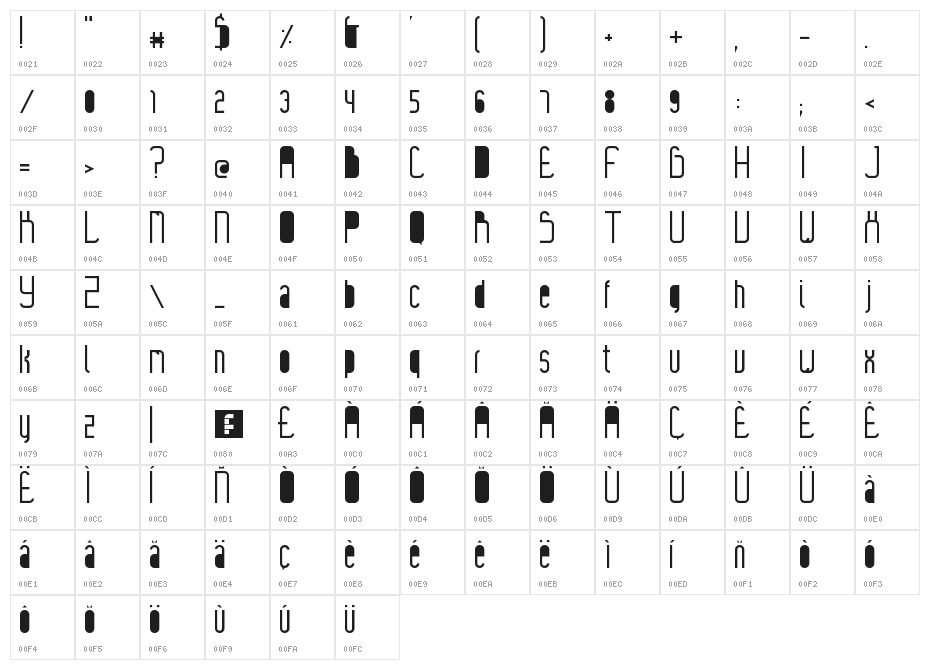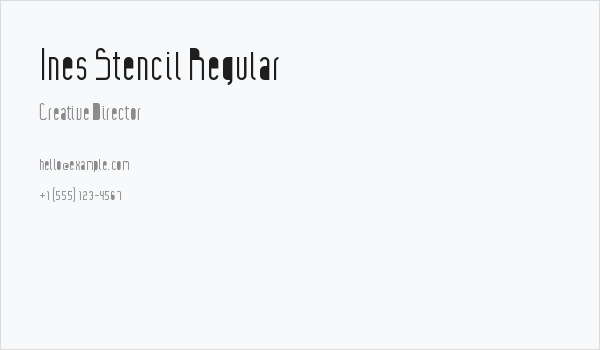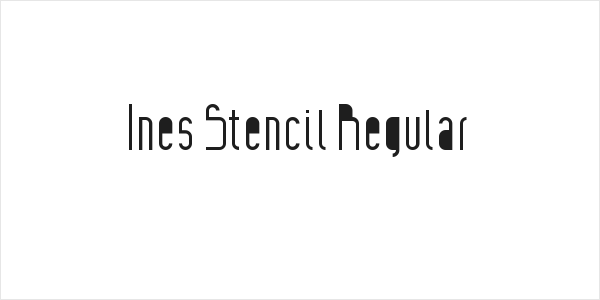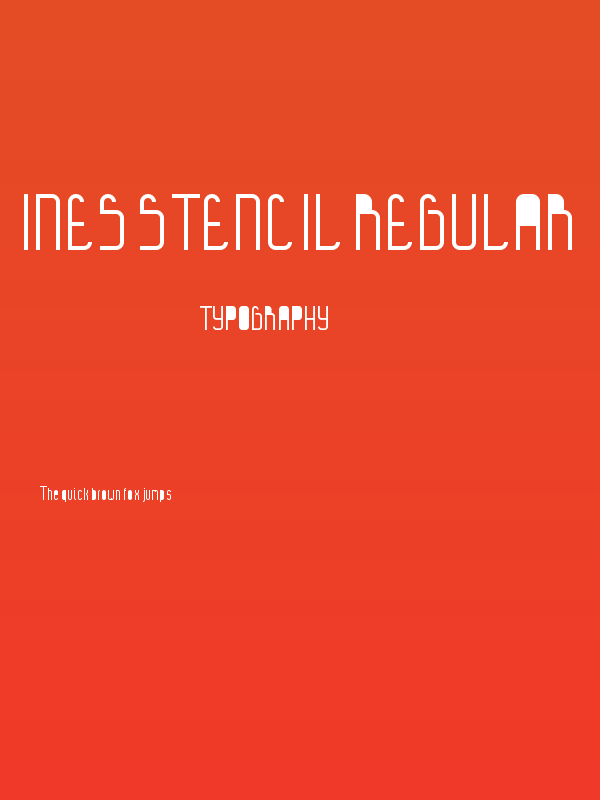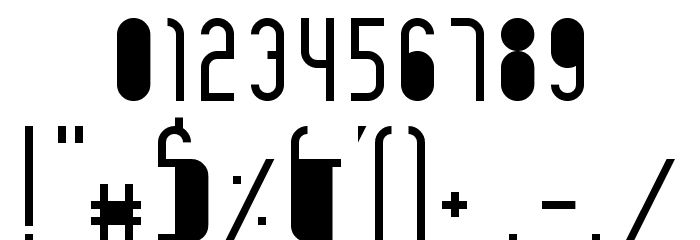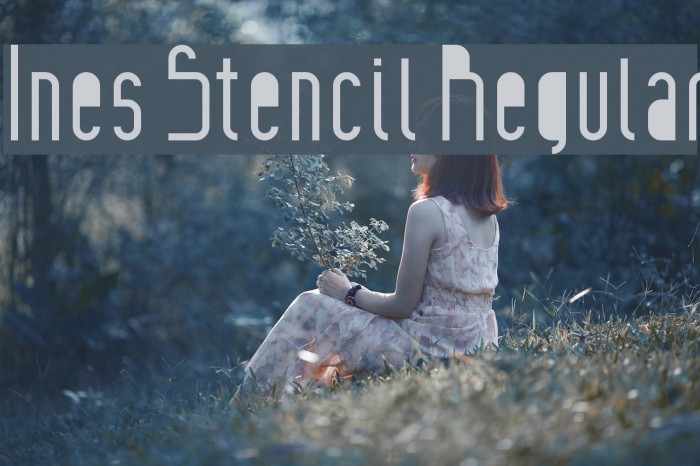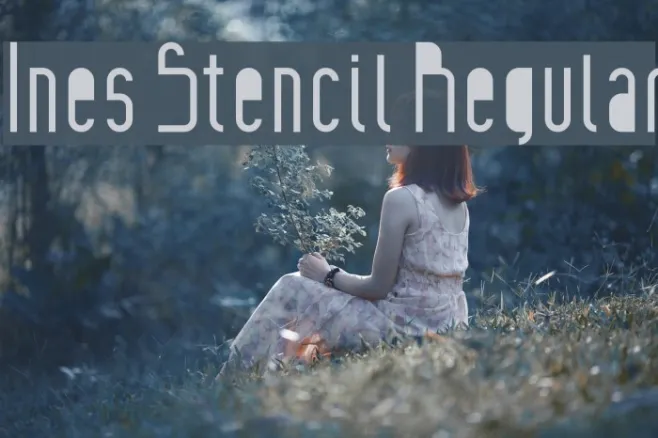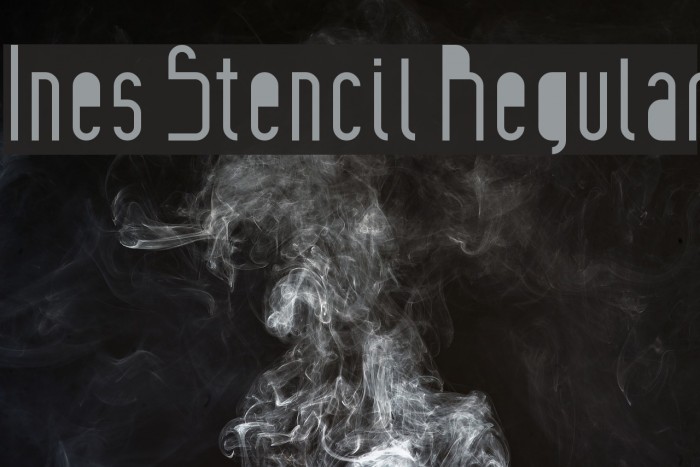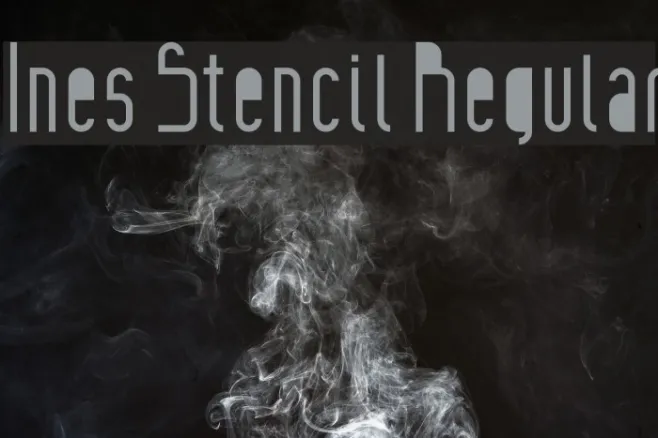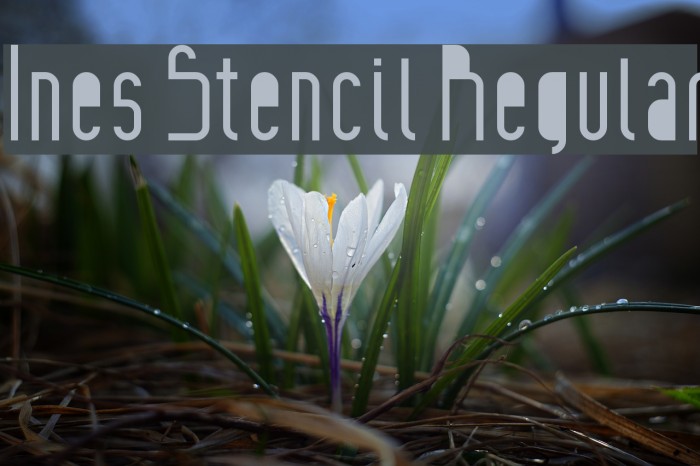
Ines Stencil Regular Font
Ines Stencil Regular Description
This font features a distinctive stencil design with a modern and geometric aesthetic. The uppercase letters are bold and structured, with clean lines and a uniform thickness that gives them a strong presence. The lowercase letters maintain the same geometric style, offering a cohesive look throughout the typeface. Numbers and special characters are crafted with the same attention to detail, ensuring consistency across all elements. The font's unique cut-out sections add an industrial and contemporary feel, making it ideal for projects that require a bold and eye-catching typeface.